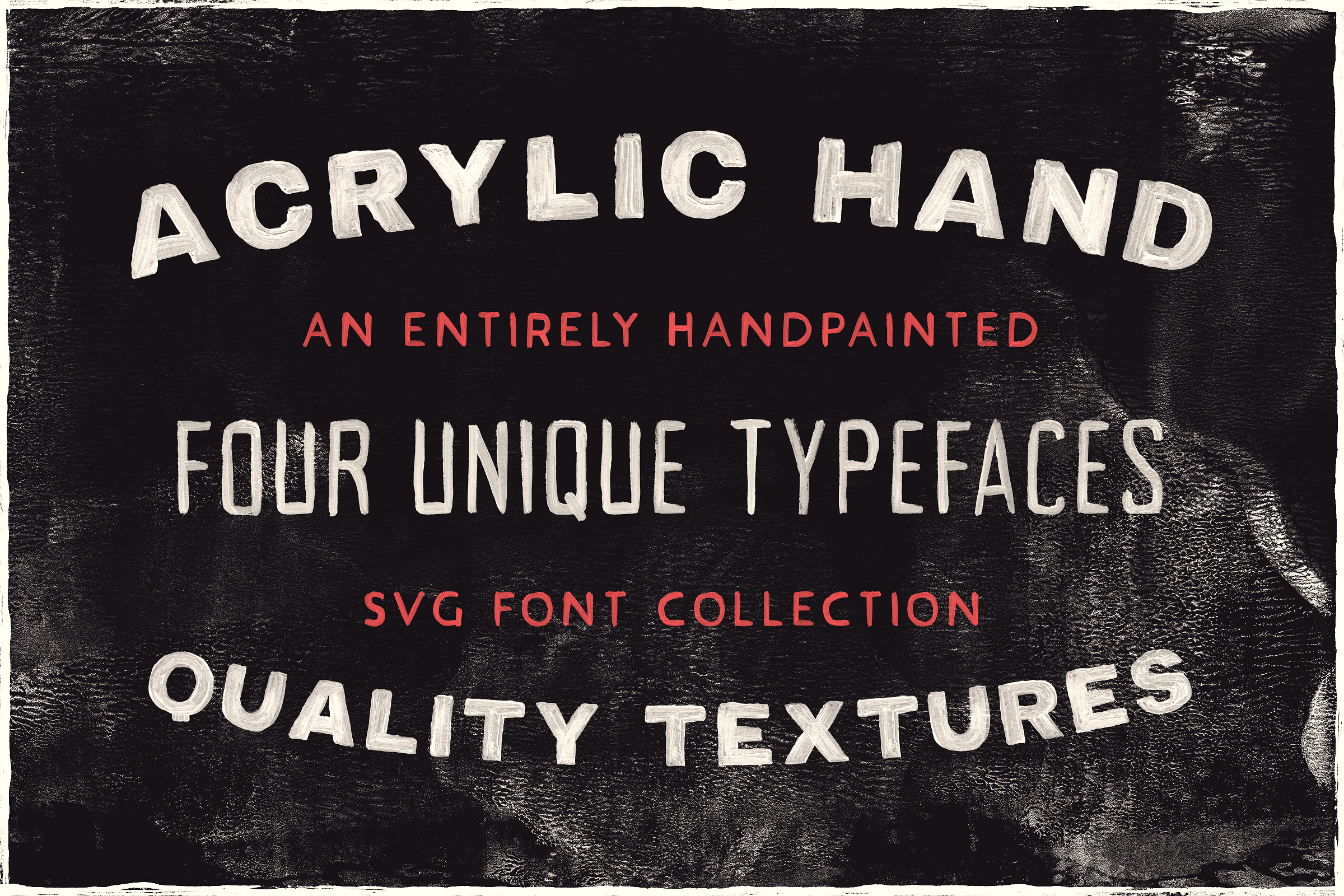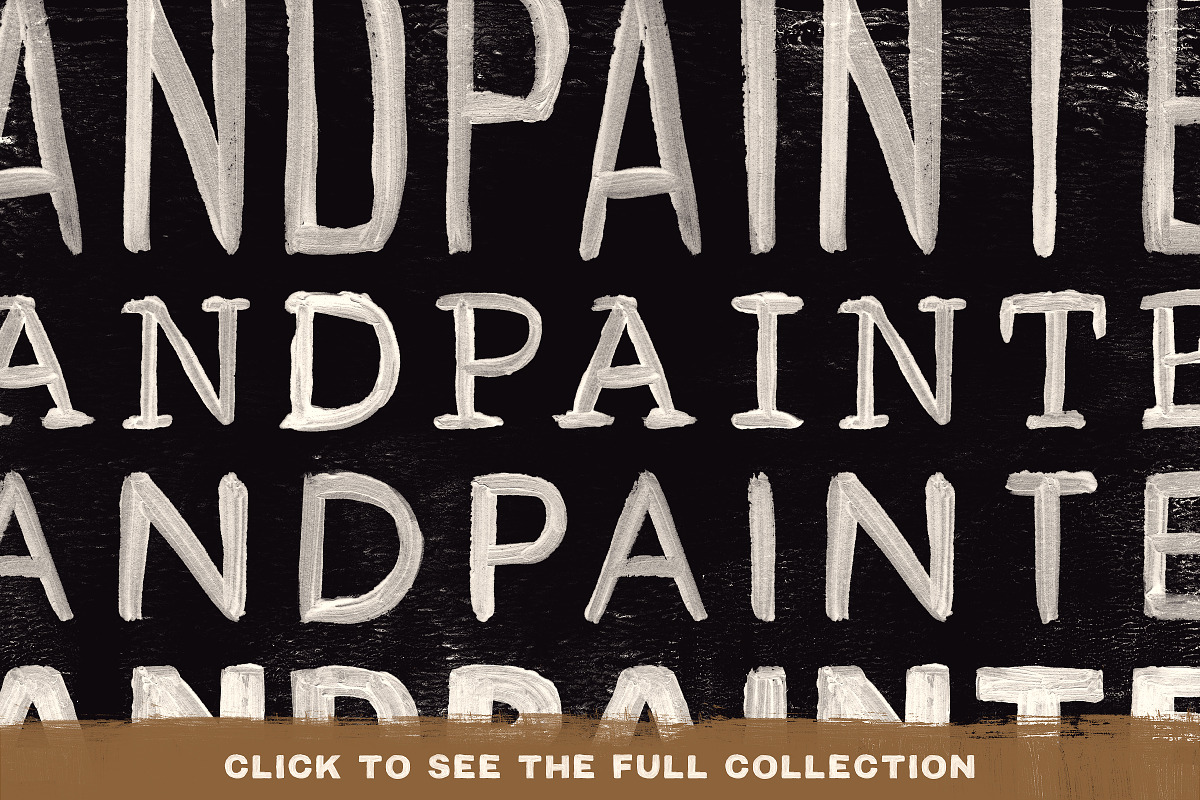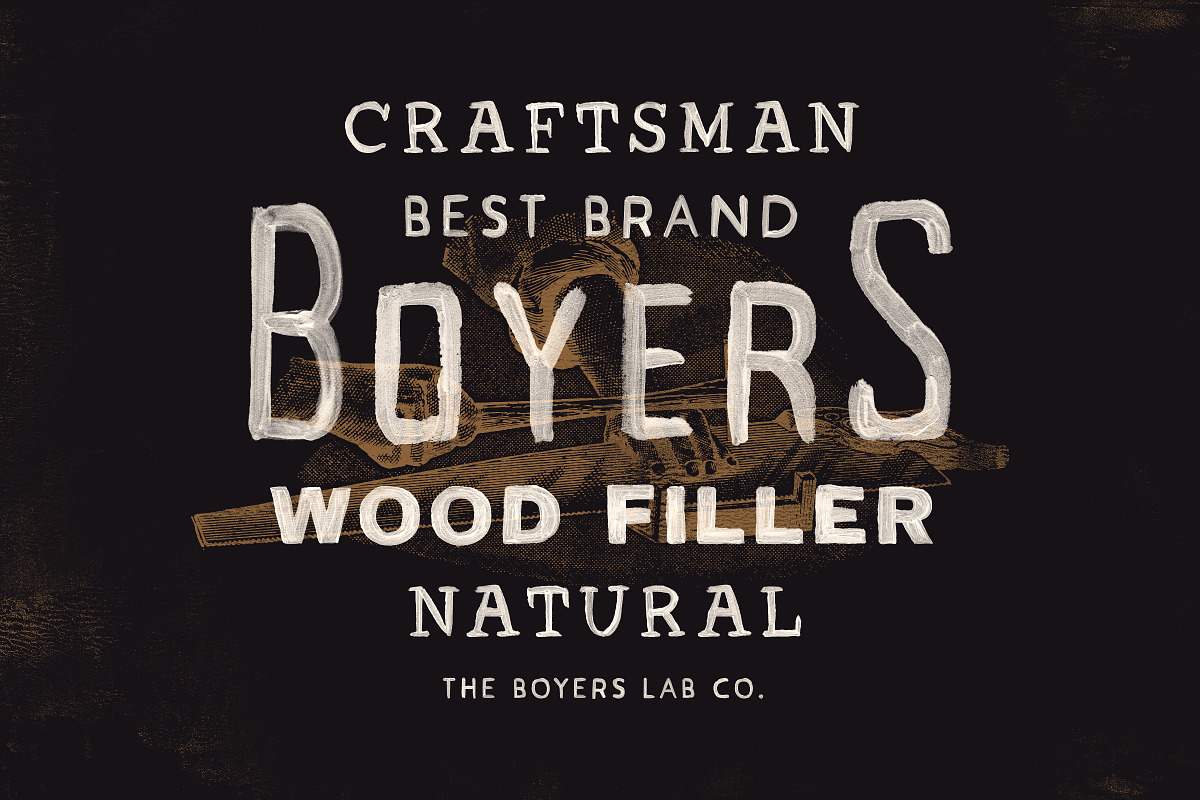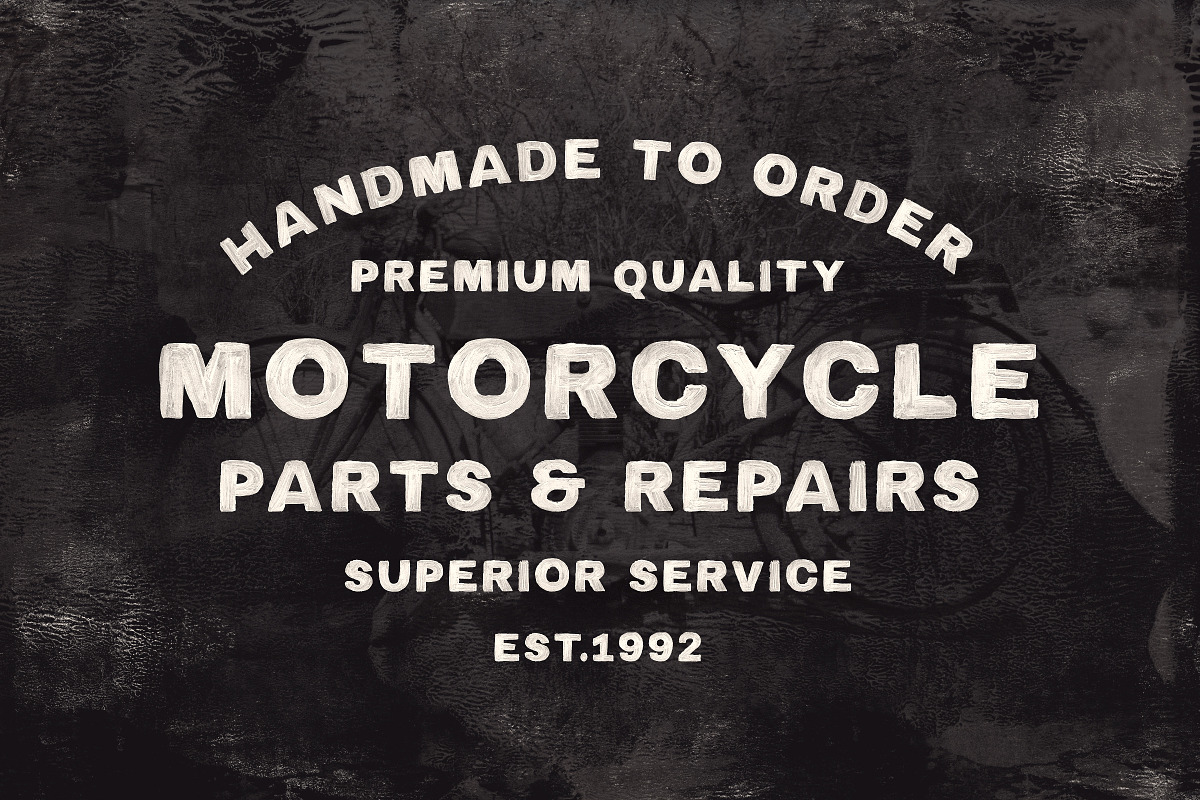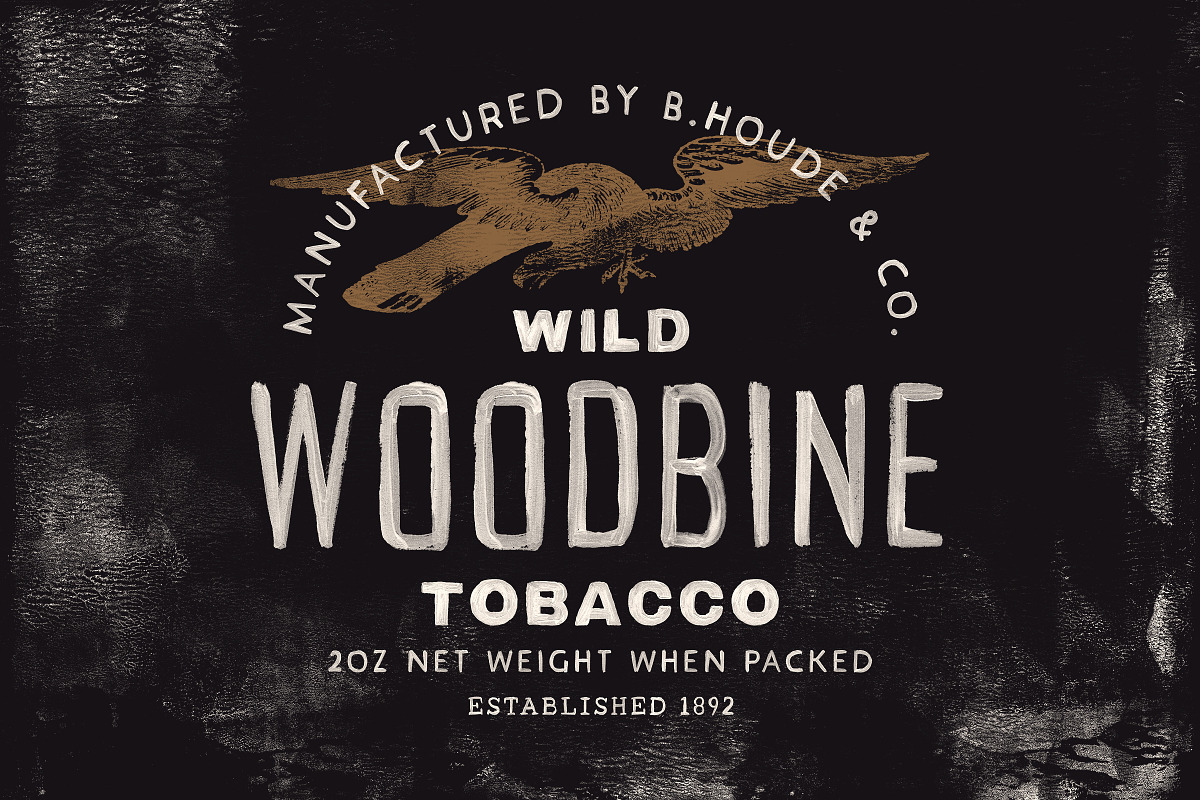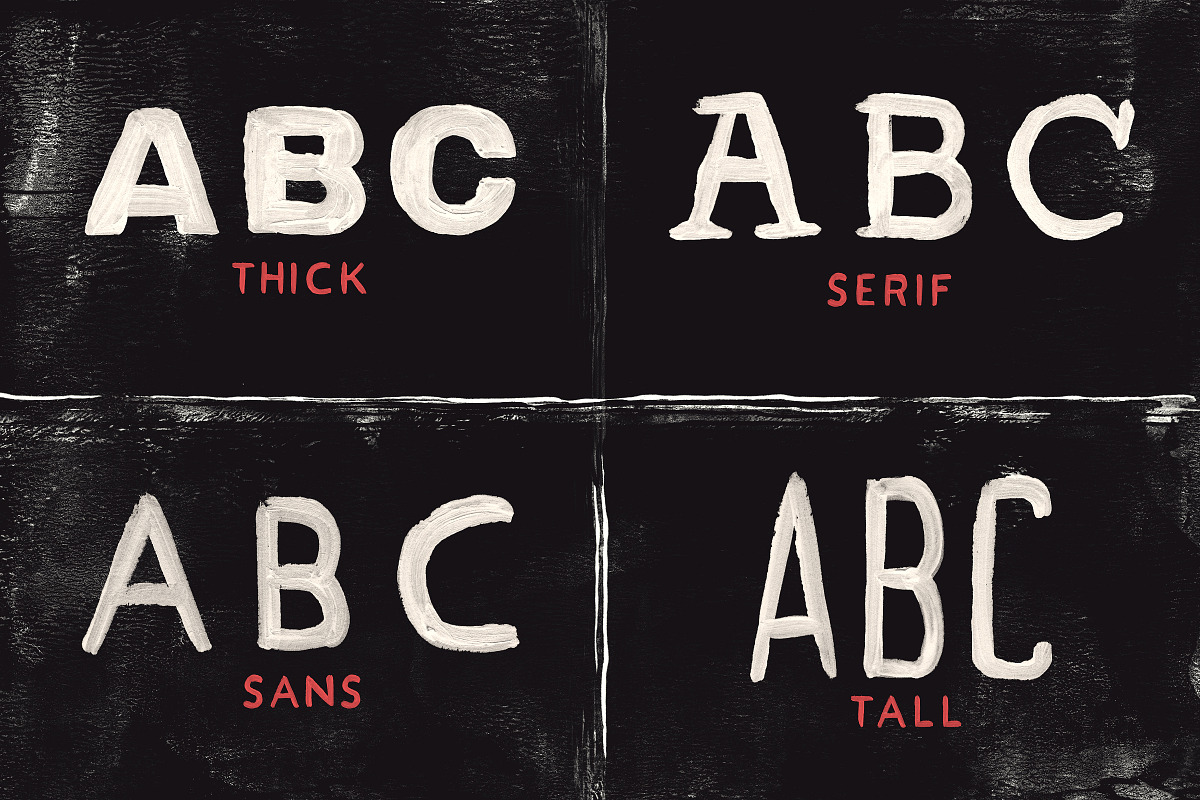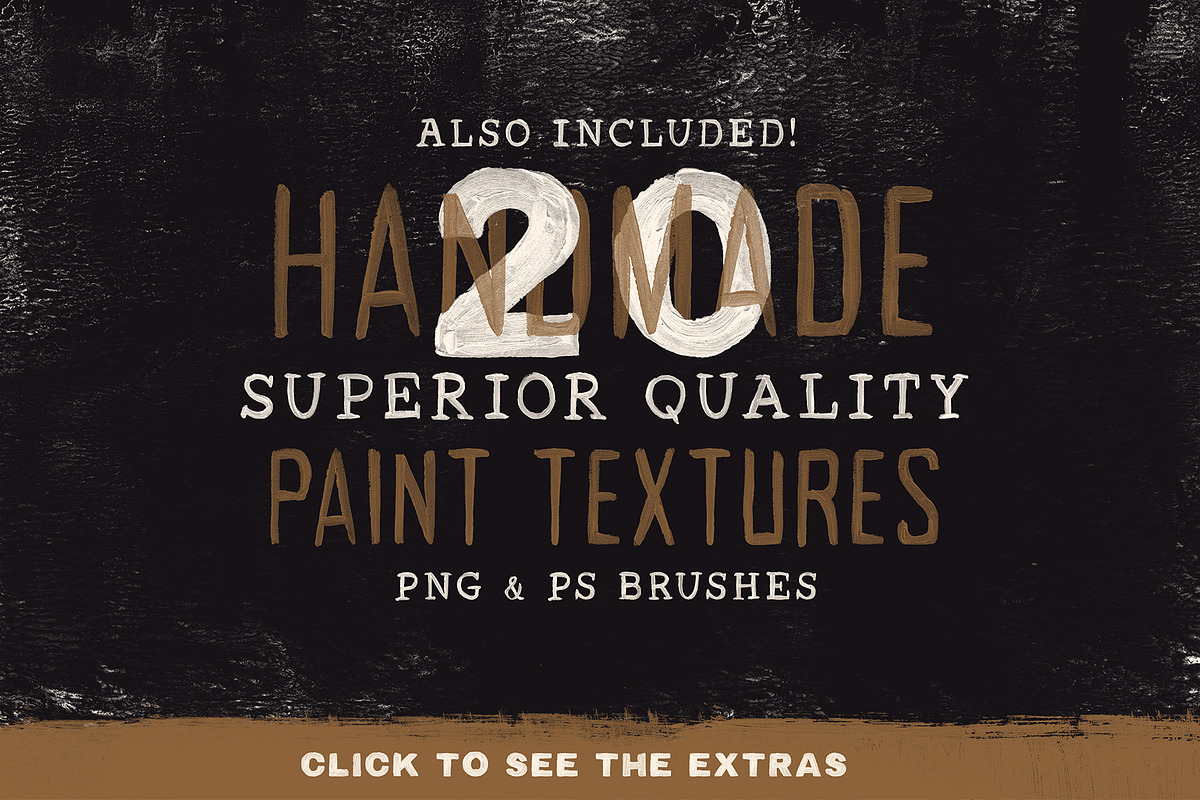
Acrylic SVG Font Collection
The SVG Acrylic Hand Font Collection includes four SVG fonts with an entirely hand painted, multilingual glyph range featuring realistic and high-quality textures throughout. The textures are exactly as they appear in the preview images above (no extra work required!). If you'd prefer these fonts in a non-svg/realistic textured format, please check out our regular Acrylic Hand collection here: https://creativemarket.com/TomChalky/284575744-Brush-Font-Collection-Acrylic-Hand
What the heck are Opentype SVG Fonts?! Opentype SVG is an entirely new font format that functions similarly to standard fonts. The big difference is that this new format allows font designers to incorporate as much detail as we wish into our creations by using high-resolution bitmap images as opposed to vector.
- Acrylic Hand Thick SVG A strong and bold sans-serif font painted with thick acrylic paint. Perfect for grabbing attention and taking center stage. The uppercase and lowercase letters are completely different, so try alternating between them to improve the overall authenticity.
- Acrylic Hand Sans SVG Your not quite average sans-serif font, designed to complement any and all of the fonts within this set and at any size. Just like the Thick sans-serif, the uppercase and lowercase letters are different to improve authenticity.
- Acrylic Hand Tall SVG A tall sans-serif font (uppercase) with the addition of small caps (lowercase). Both glyph sets have proven to be ideal for different situations, making this a super versatile addition.
- Acrylic Hand Serif SVG The collection was going to be strictly sans-serif, but I found that this was a perfect addition and looks fantastic in combination with any of the above and on its own! Also, just like the majority above, the lowercase and uppercase are completely different.
- 20 High Quality Hand Painted Textures Taken from my 'Assorted Paint Texture Collection', these 20 stunning textures perfectly complement Acrylic Hand and are available in both PNG and Photoshop Brush (ABR) formats.